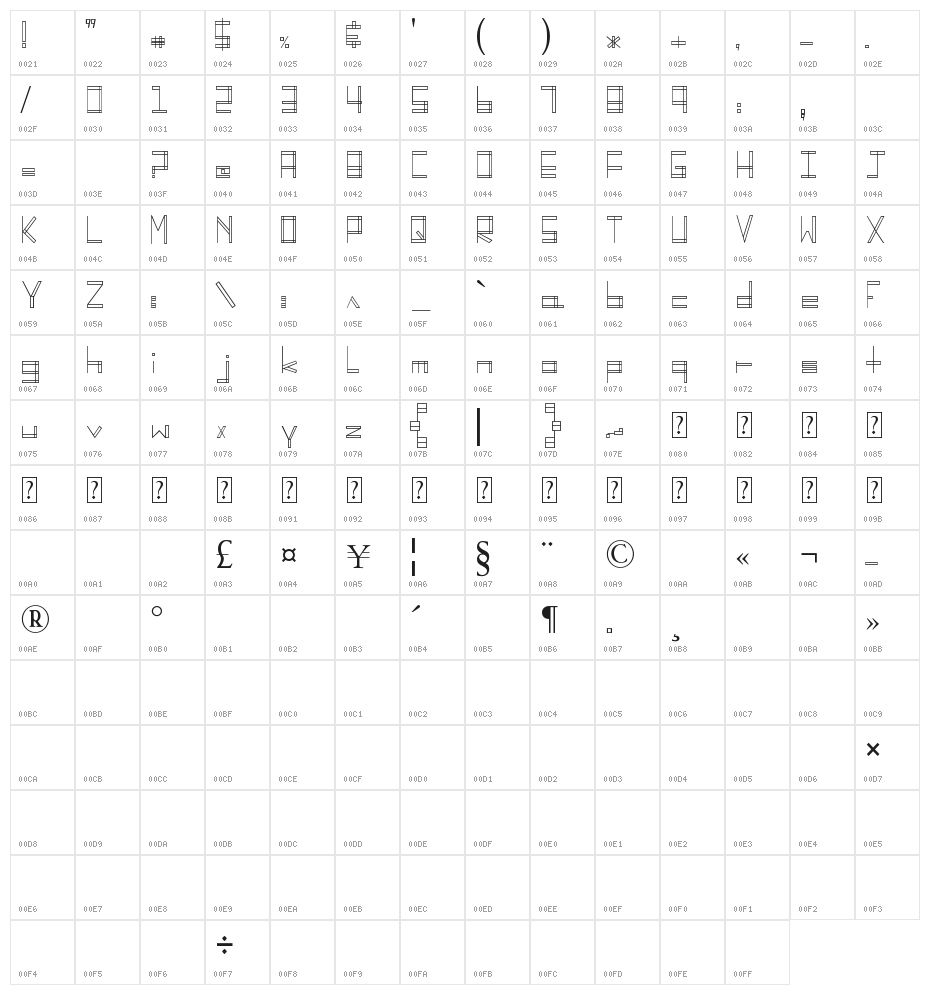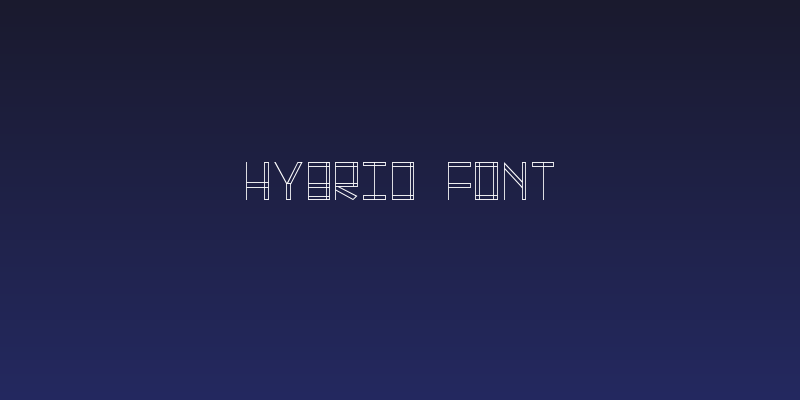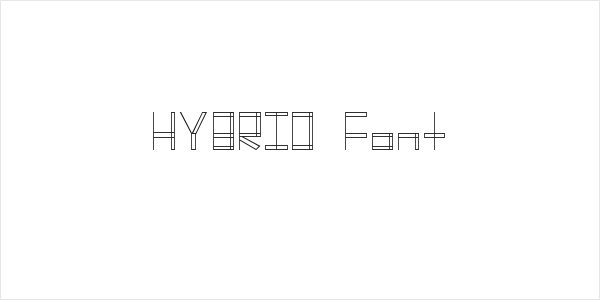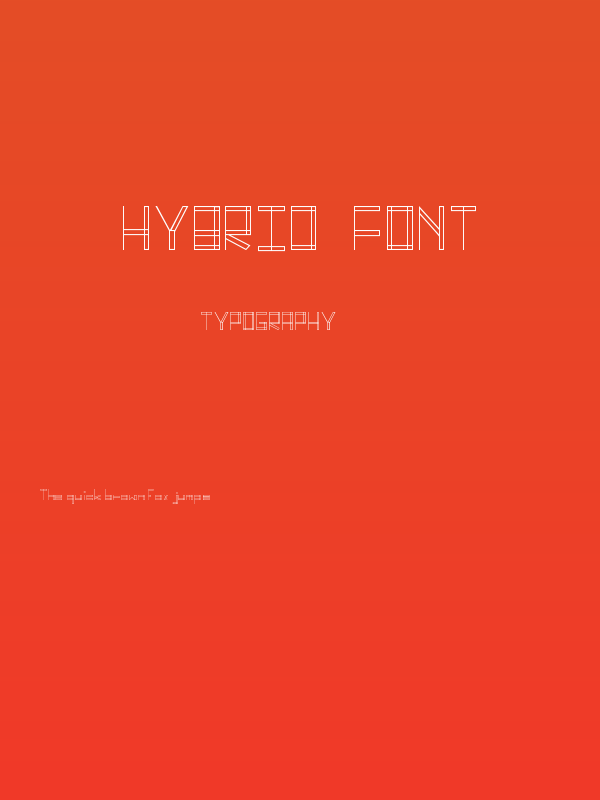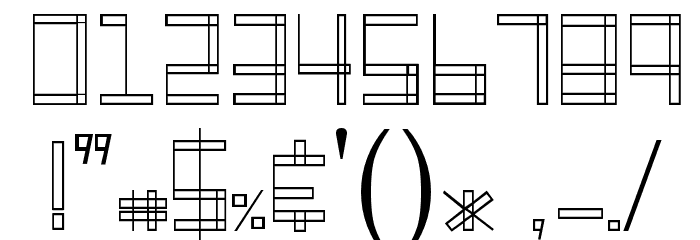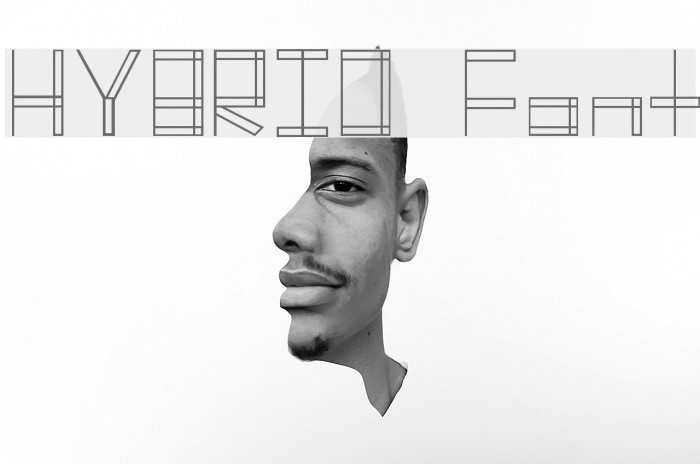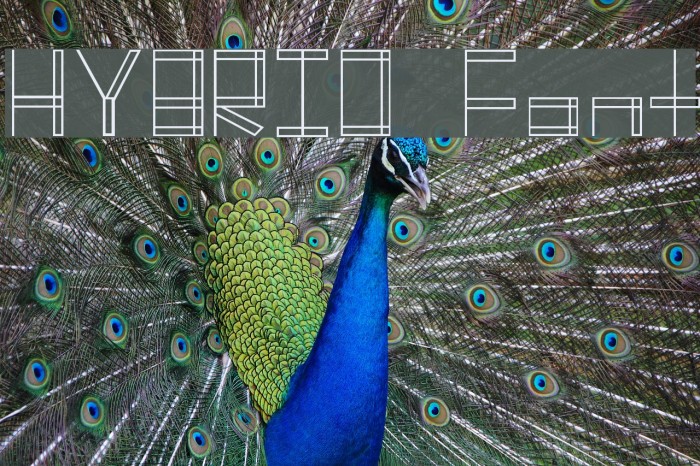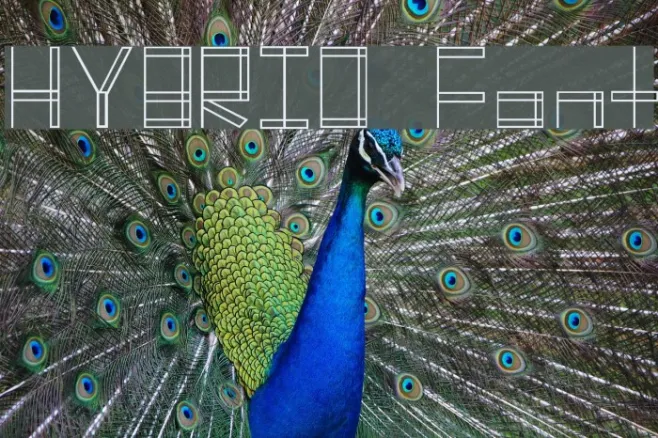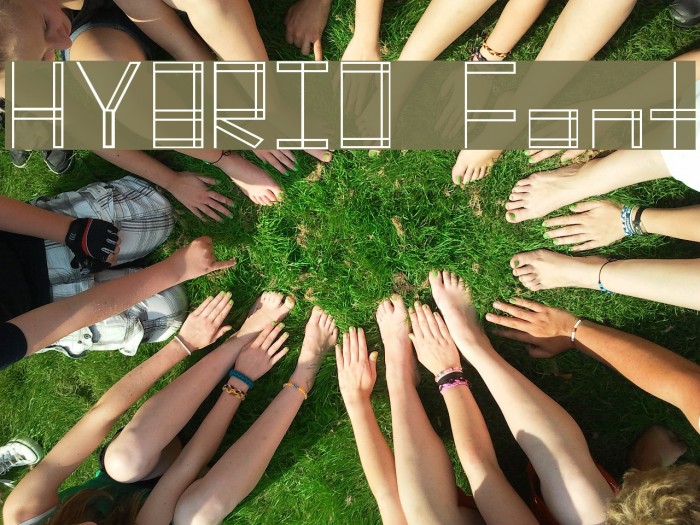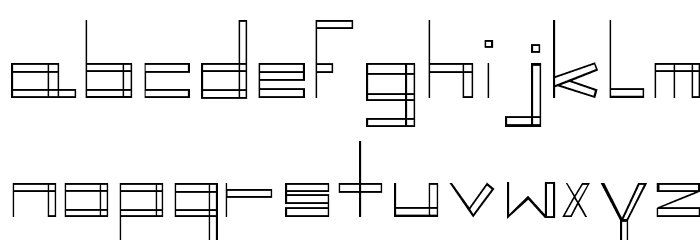
HYBRID Font Description
This font features a unique geometric design with a modern, technical aesthetic. Each character is constructed with a series of lines and angles, creating a sense of structure and precision. The uppercase letters are bold and striking, while the lowercase letters maintain a consistent style with a slightly more compact form. Numbers and special characters follow the same geometric pattern, ensuring uniformity across all elements. The font's linear and angular characteristics give it a futuristic and digital feel, making it ideal for projects that require a contemporary and innovative look.
HYBRID-FONT UPPERCASE
HYBRID-FONT LOWERCASE
HYBRID-FONT OTHER CHARS
| Use Case | Logos, Headlines, Digital Interfaces |
| Proposed Projects | Ideal for technology branding, digital interfaces, modern art projects, and futuristic themed designs. |